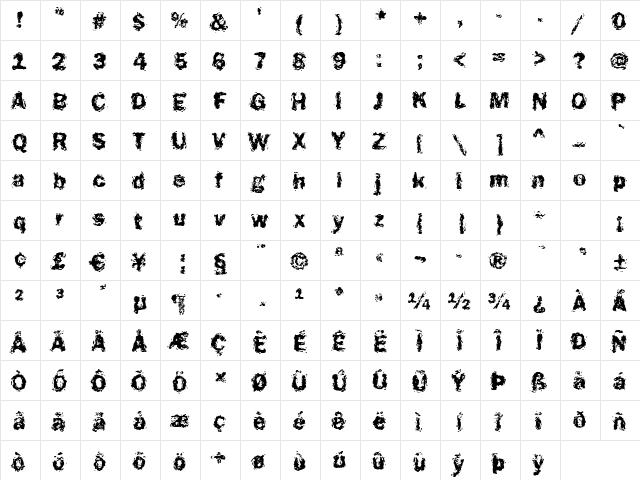
Funky23 Bold
Design Context for Funky23 Typeface
Funky23 trades formality for fun, with bouncy, characterful letterforms that bring warmth and energy to any project.
Font Pairing: Pairs well with a rounded or humanist sans for body copy, maintaining the friendly tone without relying on Funky23 to carry extended reading.
Pro Tip: Use Funky23 at larger display sizes where its expressive character can land. Pair with a clean, simple sans for body copy to maintain readability.